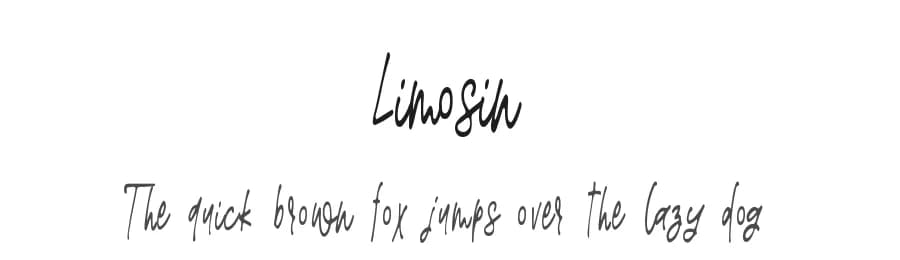
About Limosin Font
| Font Family | Limosin |
| Designer | (Syakaltype Studio). 2021. (Lutfi Fauzi) |
Limosin Font is a script font that shines as a display or heading face. Pair it with a clean sans-serif or serif font for body text β the contrast creates a clear hierarchy while the two styles stay balanced and easy to read.
Limosin Font